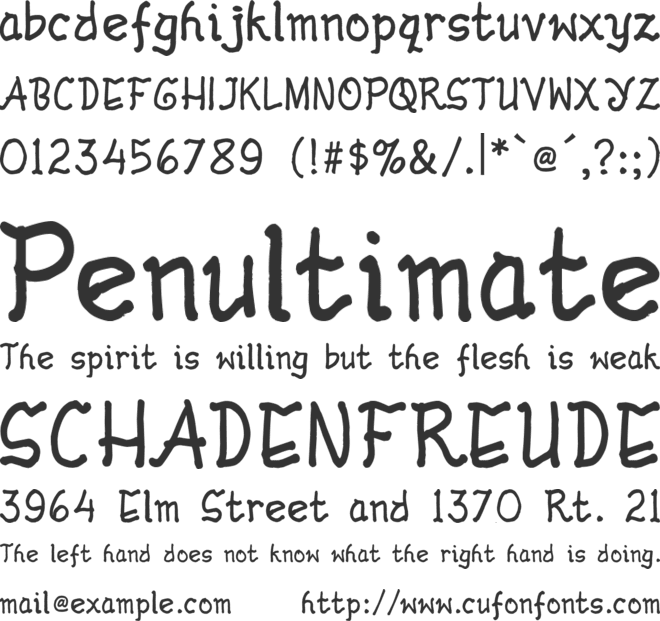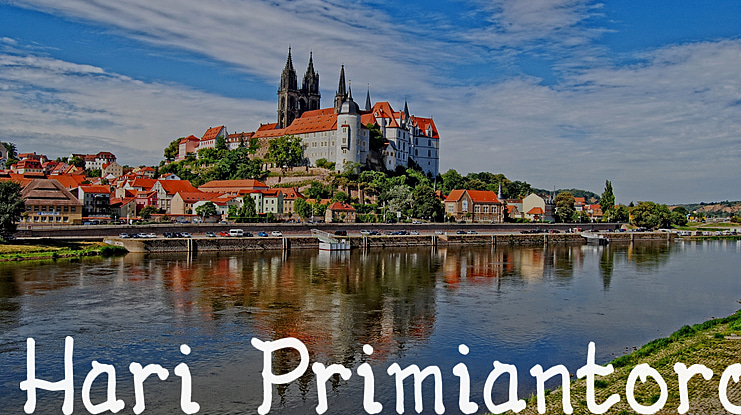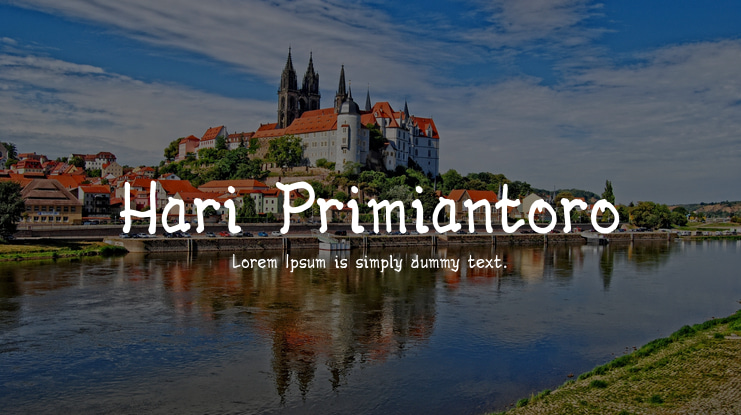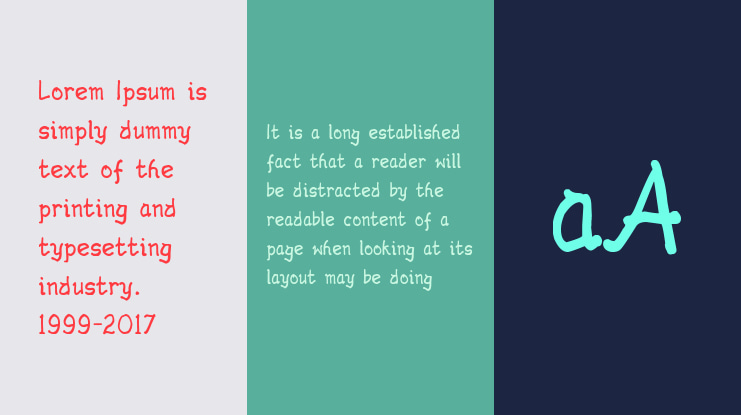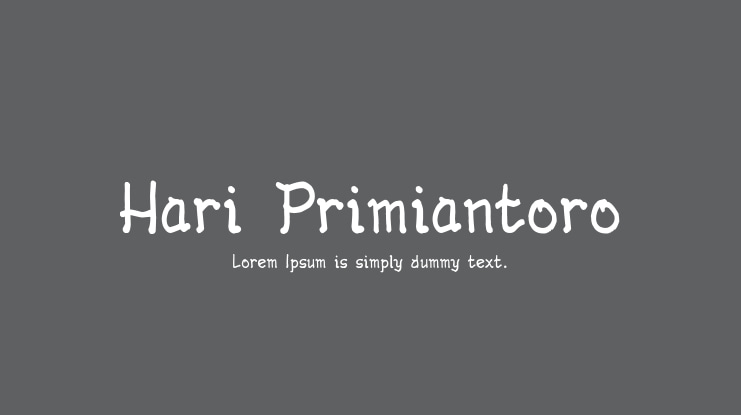
Hari Primiantoro Font
Hari Primantoro is my nephew's husband. Born in 1967.
He lives in Sukorejo, Kendal, Central Java, Indonesia
This font is his handwriten.
I digitalized it.